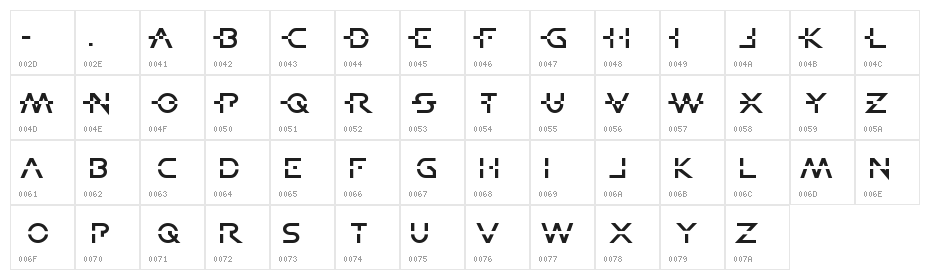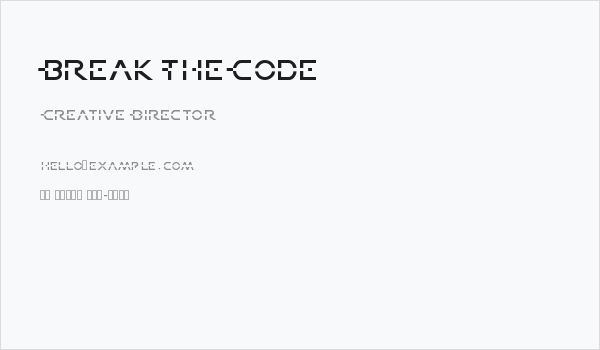
BreakTheCode Font
BreakTheCode Description
This font features a modern, geometric design with a distinctive horizontal line cutting through the middle of each character. The uppercase letters are bold and angular, creating a futuristic and edgy appearance. The characters are constructed with clean, straight lines, and the horizontal cut adds a unique visual interest. The font has a consistent weight throughout, with no variation in stroke thickness, giving it a uniform and cohesive look. The spacing between characters is normal, allowing for readability while maintaining its striking design. This font is ideal for projects that require a contemporary and bold statement.
| Proposed Projects | Ideal for branding, logos, posters, and digital media that require a bold, futuristic look. |